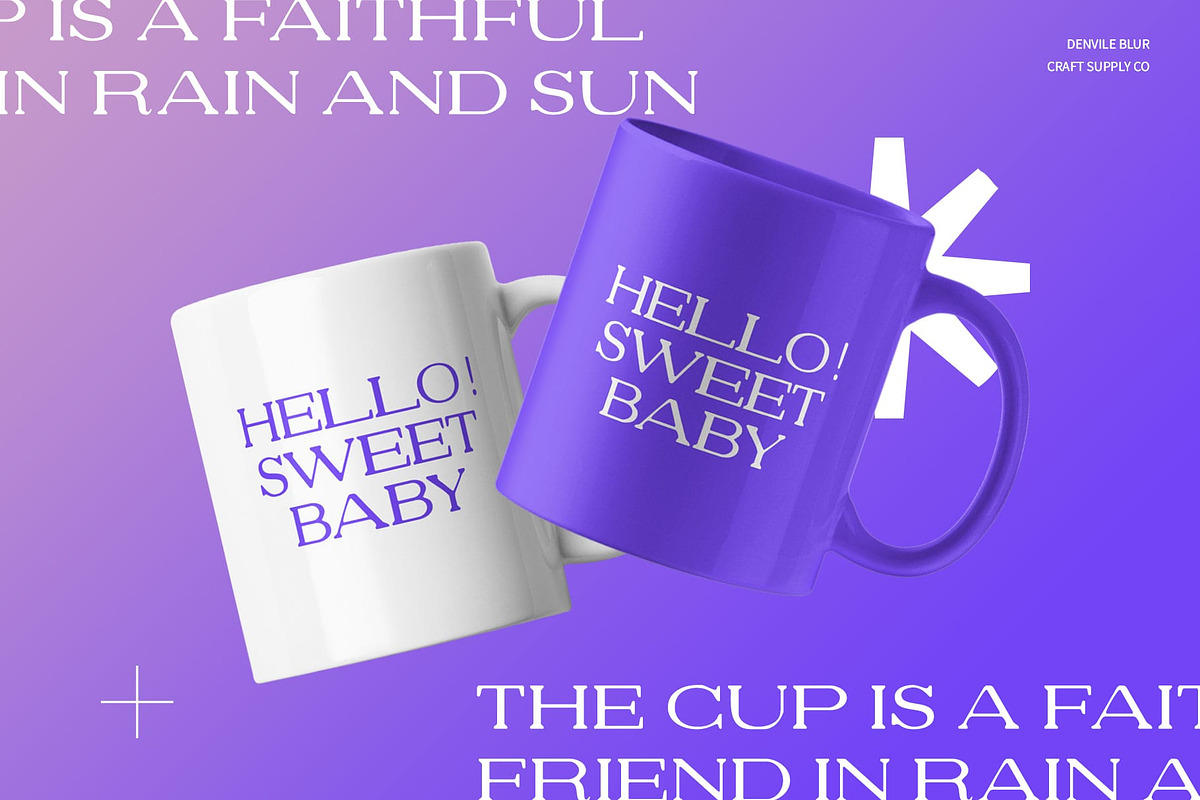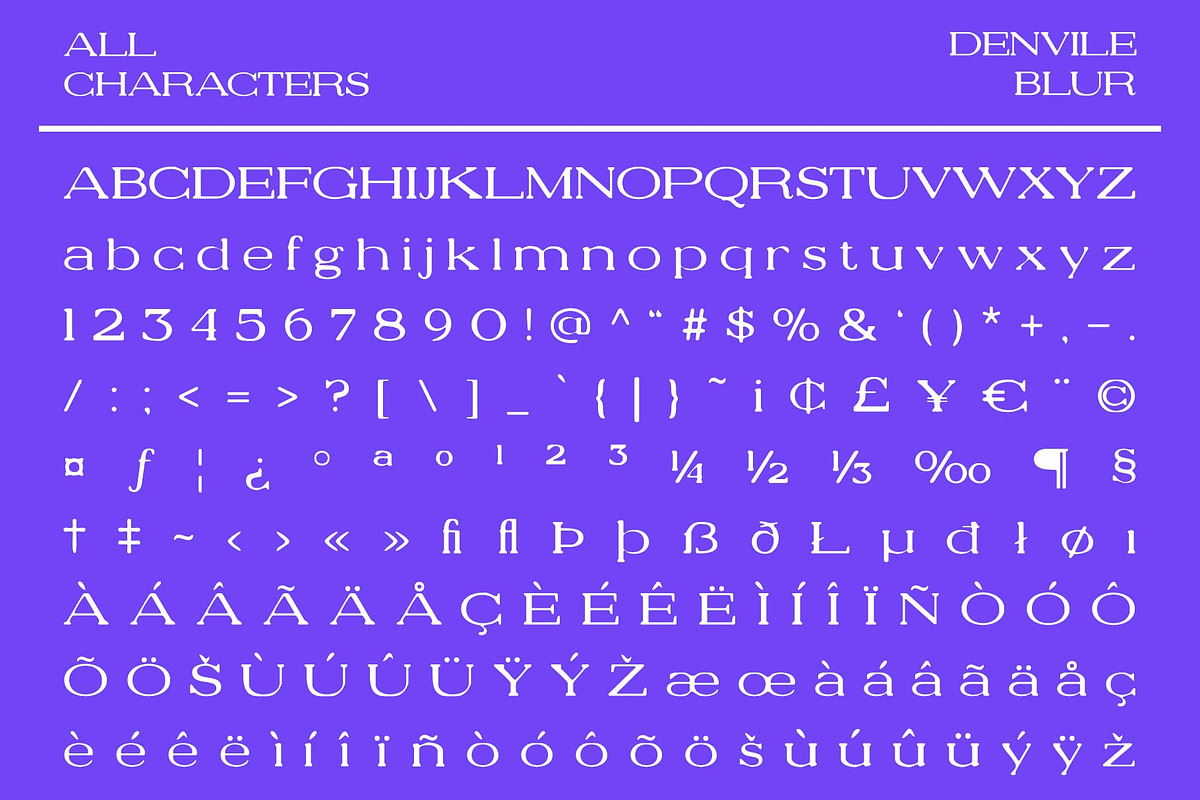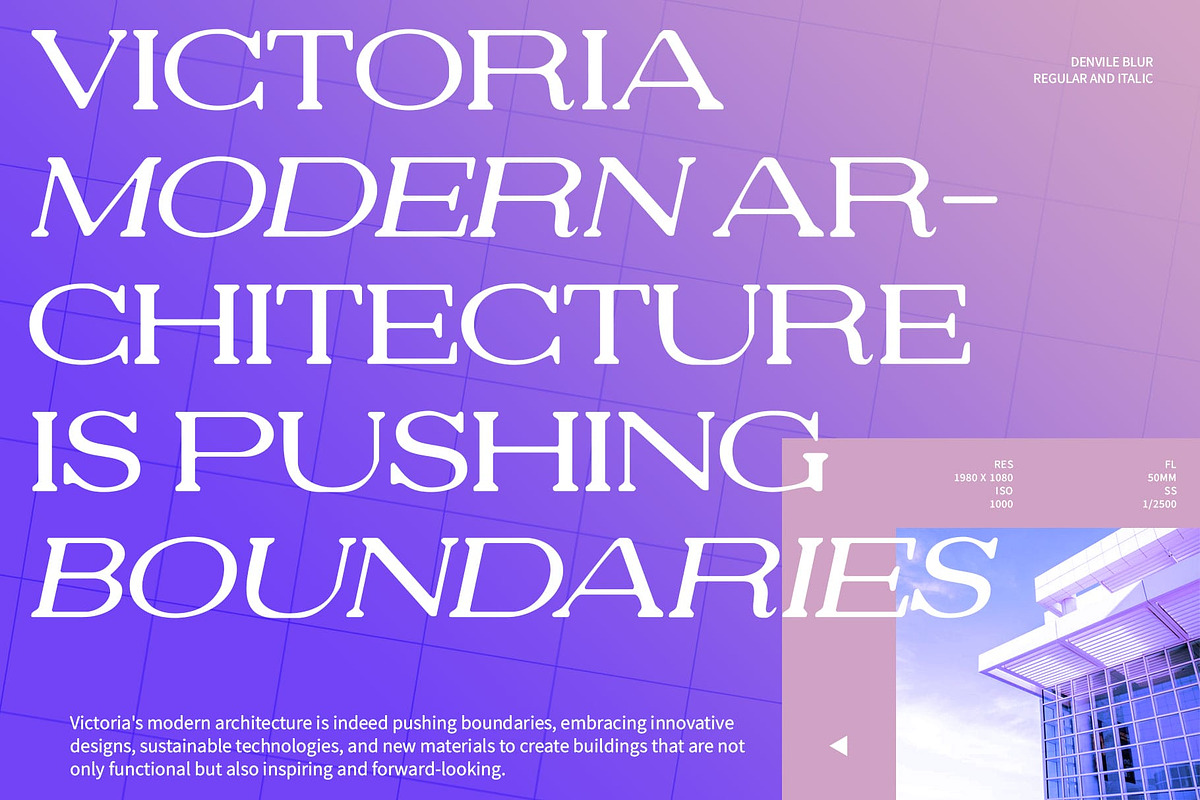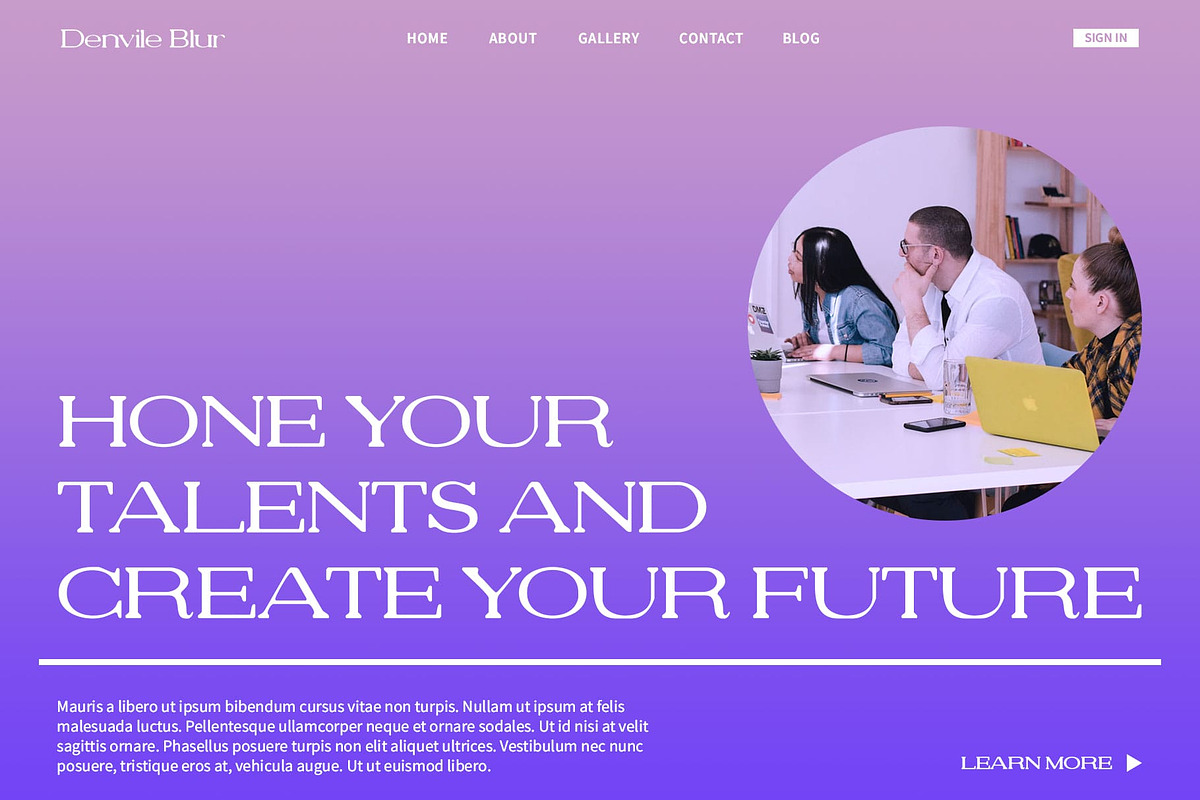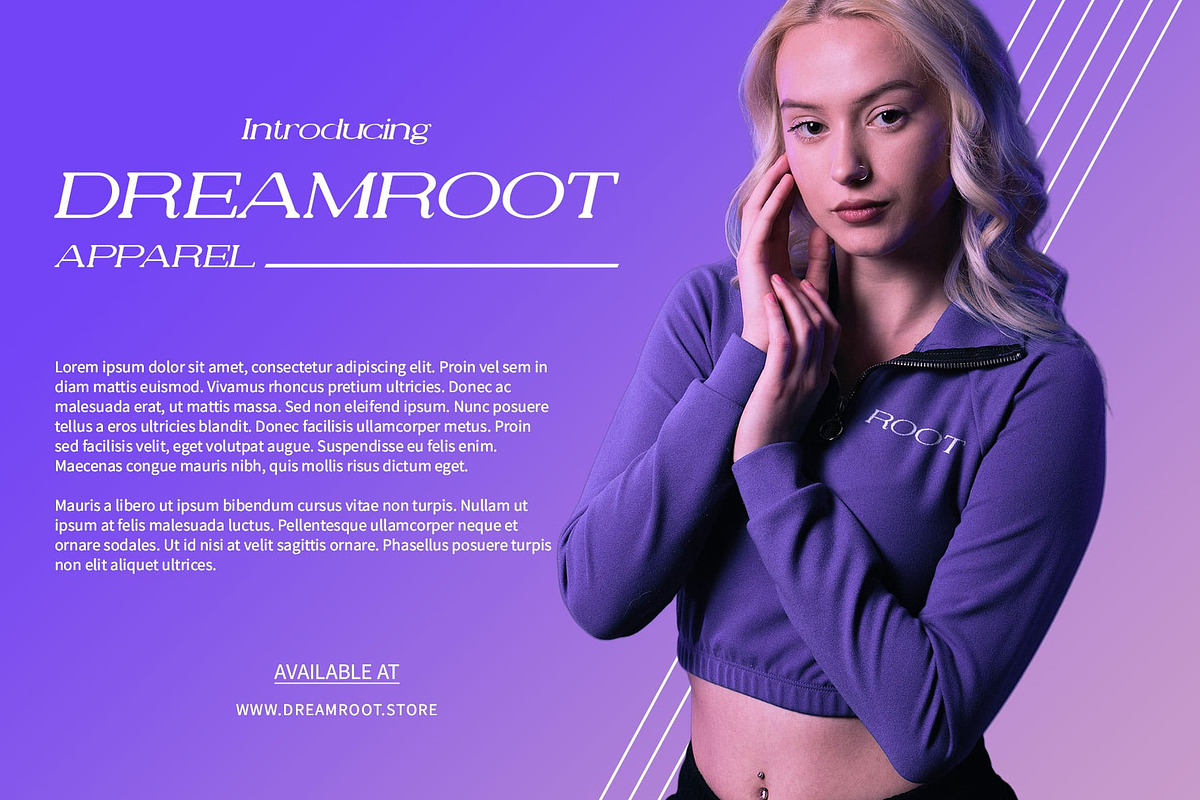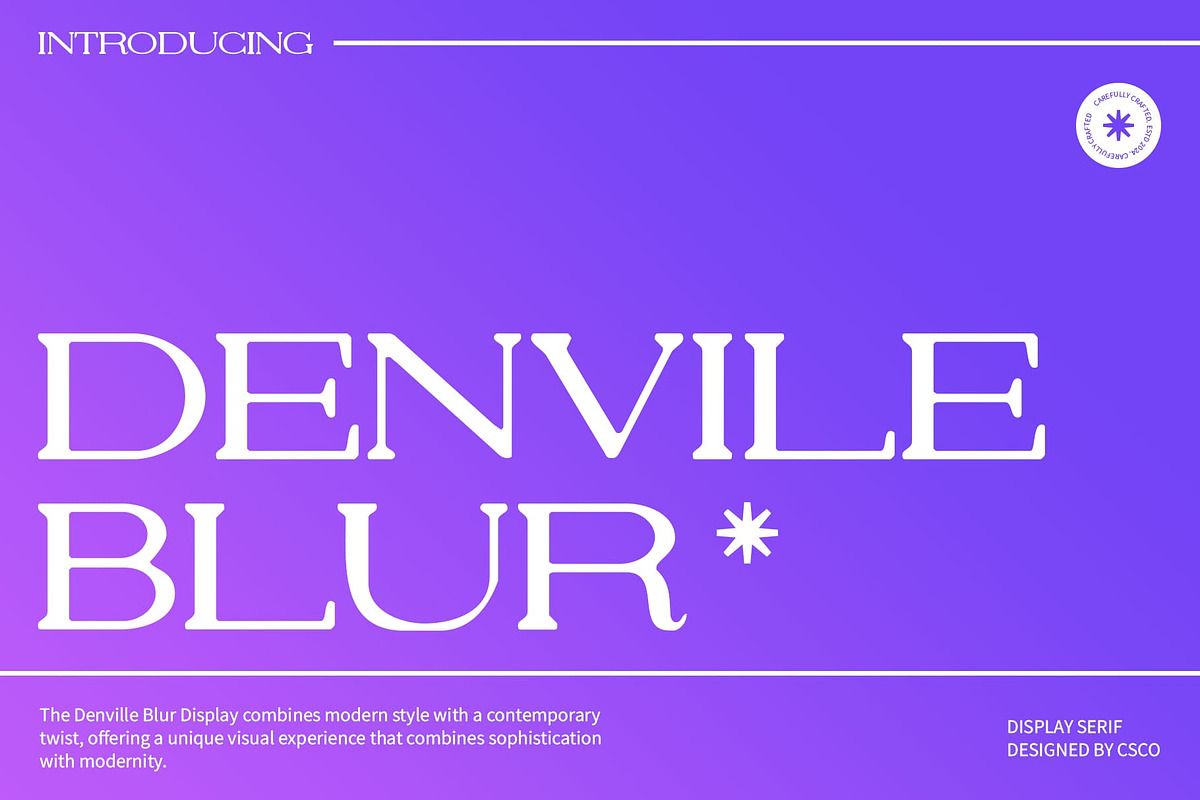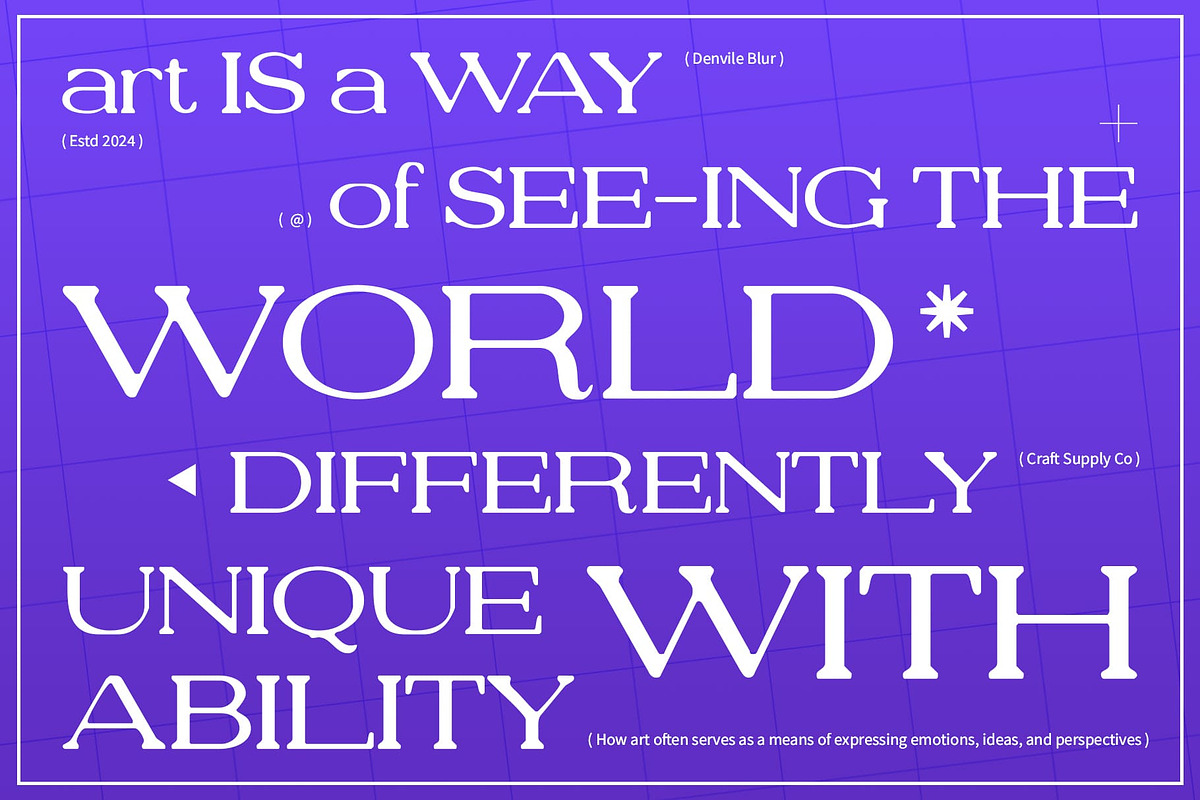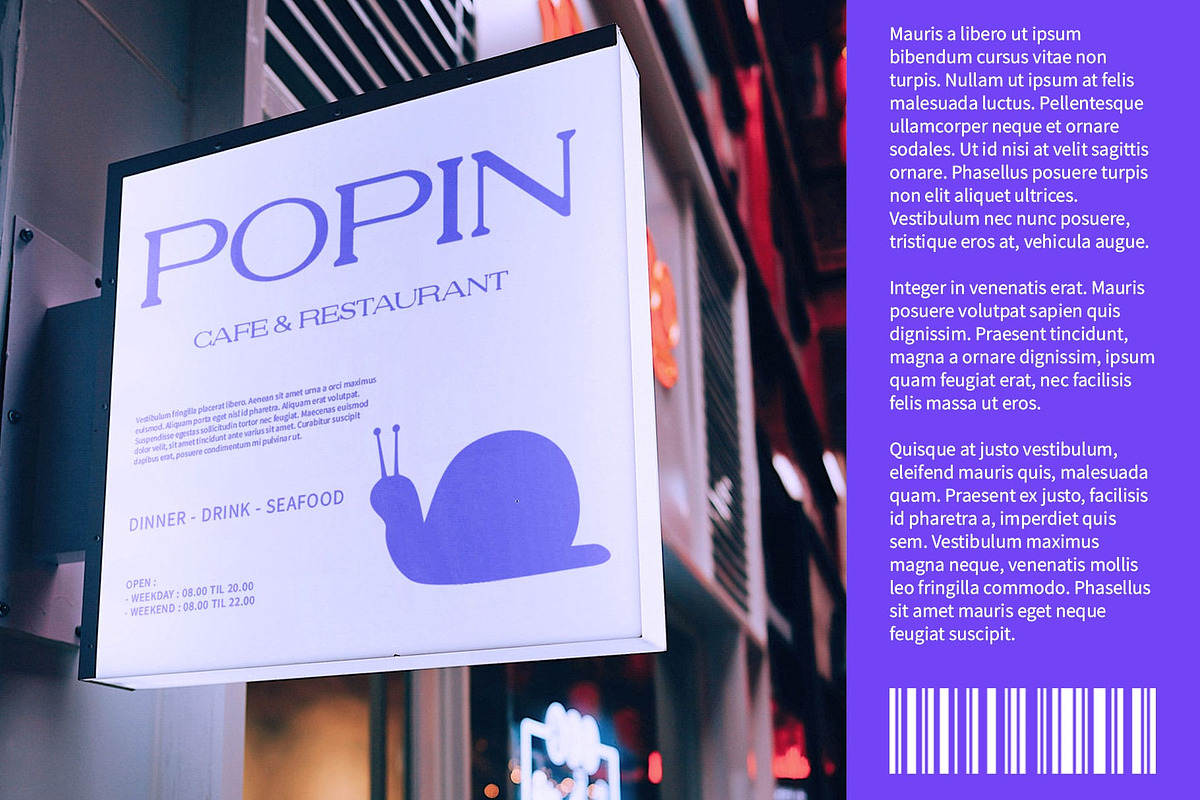
Denvile Blur
Denvile Blur: Modern Serif Font with Wide Form and Blur Effect
Contemporary Elegance with Blur Effect
Denvile Blur is a modern serif font that combines a wide form with a sophisticated blur effect, making it an ideal choice for designs that prioritize clarity and contemporary style. This font features elegant serif characters with a striking width, ensuring a strong and authoritative appearance across various design applications.
Spacious and Elegant Design
The wide form of Denvile Blur provides ample space while maintaining readability and visual impact. This feature makes it suitable for projects that require a spacious and elegant look, such as editorial layouts, branding, and luxury packaging, where clarity and sophistication are essential.
Enhanced Visual Interest
The blur effect in Denvile Blur adds dimension and depth to its elegant serif characters, creating an interesting and modern visual impression. This artistic touch ensures that your designs stand out with a unique blend of innovation and sophistication.
Ideal for Versatile Applications
Whether used for corporate identities, editorial designs, or digital interfaces, Denvile Blur excels in delivering a contemporary and refined aesthetic. Its wide form and blur effect make it a versatile choice for projects that demand a balance of elegance, clarity, and modernity.
- Denvile Blur Regular
- Denvile Blur Italic